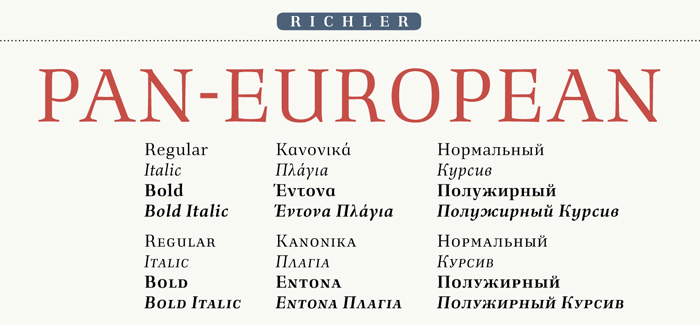
Richler font
Richler font is an original type, full of personality in the drawing yet smooth in its composite effect. An open, evenly spaced book face, it is designed for both immersive reading and headlines. Display settings are animated by fine details informed by the seminal influence of the broad-nibbed pen on the Antiqua (old style) genre. Each letter is a study in thematic style, with a subtle, firmly crafted, slightly offbeat quality that mocks both artful pretension and dull conformity. Richler was commissioned in memory of Canadian author Mordecai Richler (1930-2001). Taking its cue from his masterpiece, the ingenious Postmodern tour de force Barney’s Version, the Richler typeface combines traditional quality of execution with present-day structure and functionality.